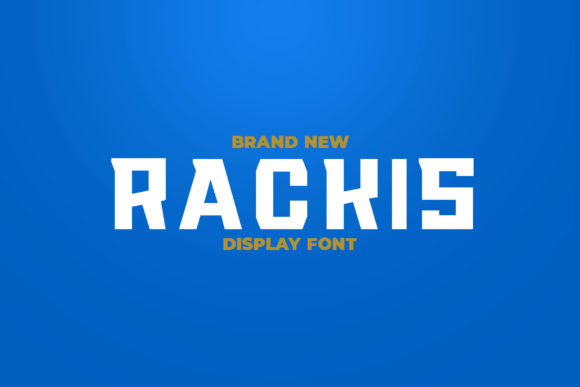
Witness the impeccable artistry of Rackis Font, a captivating display font that will ignite a new era of visual expression. Designed with meticulous precision by ovoz.graphics, Rackis transcends ordinary typography, becoming an emblem of boldness and dynamism. Its striking lines and impeccable curves evoke a sense of athleticism and energy, making it the perfect choice for sports logos, team identities, and any design seeking an adrenaline rush.
Unleash the power of Rackis and immerse yourself in a realm of creative possibilities. Its sharp angles and edgy strokes exude a confidence that commands attention, while its underlying elegance ensures a timeless appeal. Whether you're a seasoned designer or just starting your creative journey, Rackis will empower you to create designs that leave a lasting impact.
Experience the thrill of crafting logos that ignite passion and fuel the competitive spirit. Rackis's innate ability to capture the essence of sports and athleticism makes it an indispensable tool for designers seeking to create impactful and memorable identities. Its versatility extends beyond the realm of sports, seamlessly adapting to fashion, music, and lifestyle brands. Rackis is the ultimate font for those who dare to stand out and leave an indelible mark on the world.
Immerse yourself in the world of Rackis and discover a font that truly embodies the essence of modern elegance. Its sleek and contemporary design effortlessly elevates any project, adding a touch of sophistication and style. With Rackis as your creative ally, you'll unlock a new level of design excellence, crafting projects that exude confidence and leave a lasting impression.
Don't settle for ordinary fonts that blend into the background. Embrace the audacity of Rackis and ignite your creativity. Its captivating presence will transform your designs into masterpieces, captivating audiences and leaving them in awe. Unleash the boundless potential of Rackis today and embark on a creative journey that knows no limits.